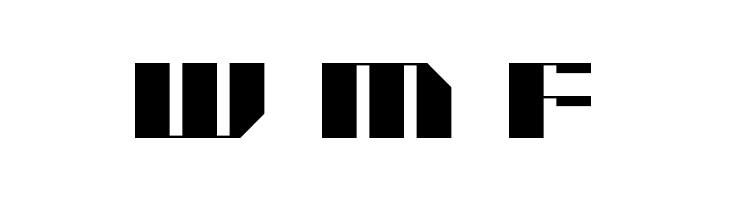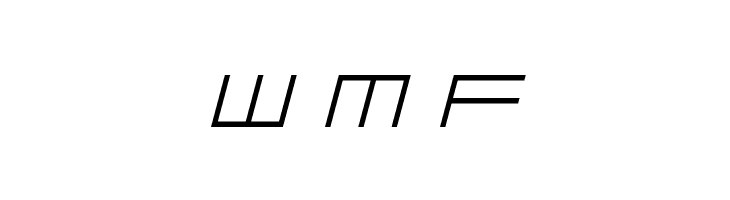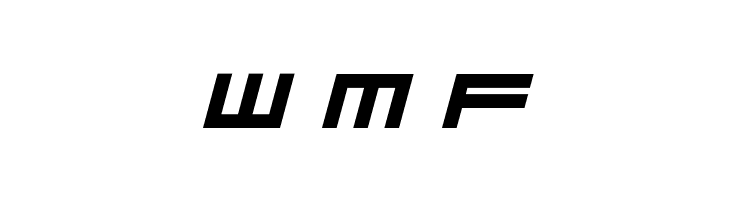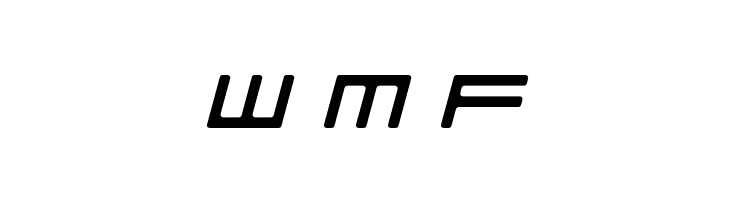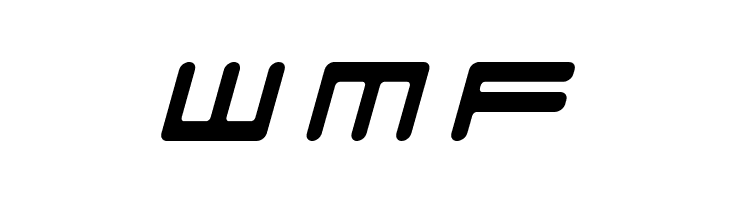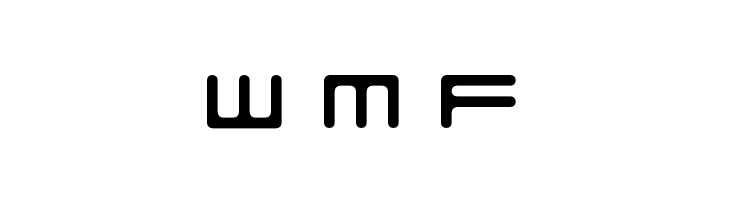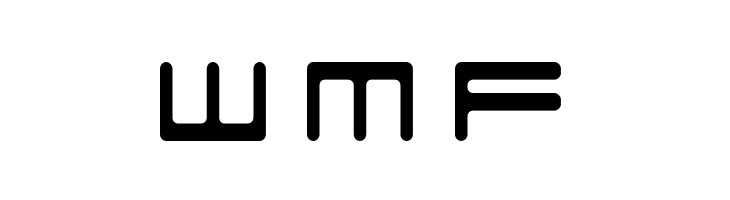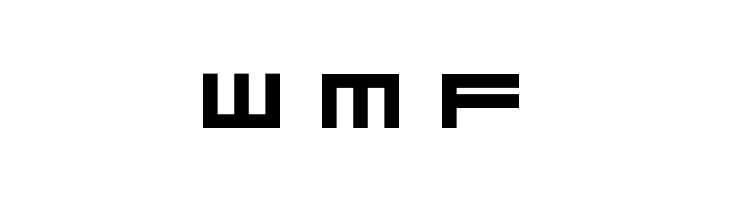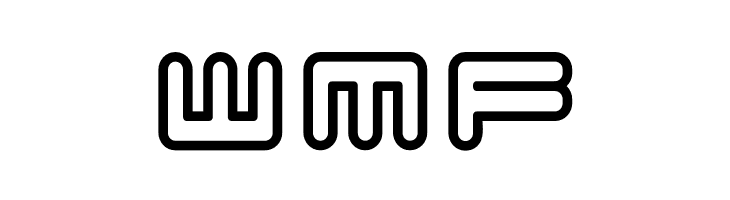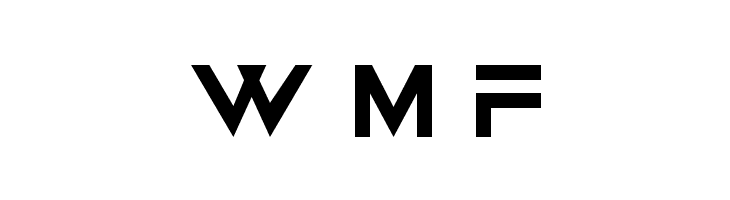
A bold, futuristic font with geometric, angular shapes and a technological feel.
A bold, geometric font with angular, futuristic characters.
A bold, geometric font with a modern, blocky aesthetic.
A bold, oblique font with a futuristic and dynamic style.
A futuristic, oblique font with rounded edges and a sleek, modern design.
A futuristic, angular, and oblique font with a sleek, modern design.
A sleek, futuristic font with geometric and dynamic design.
A futuristic, geometric font with angular shapes and clean lines.
A futuristic, rounded font with geometric shapes and smooth curves.
A futuristic, geometric font with thin, angular strokes and consistent height.
A sleek, futuristic oblique font with thin, elongated characters and sharp angles.
A futuristic, oblique font with bold, geometric characters and rounded edges.
A futuristic, geometric font with bold, rounded edges and consistent stroke width.
A futuristic, geometric font with rounded edges and uniform line thickness.
A sleek, futuristic oblique font with a modern, high-tech aesthetic.
A futuristic, outlined font with a bold, geometric style.
A futuristic, outlined font with bold, geometric shapes and smooth, rounded edges.
A bold, geometric font with sharp angles and a modern, industrial aesthetic.
A bold, geometric font with a futuristic and industrial design.
A bold, geometric font with a futuristic, industrial style.
A geometric, maze-like font with intricate line patterns and a bold, modern style.
A bold, geometric font with angular shapes and a modern, digital feel.
A bold, angular font with a modern, dynamic style and high contrast.
A bold, geometric font with strong, angular shapes and a modern look.
A bold, italic font with angular, geometric characters and a modern, dynamic style.
A bold, geometric font with angular lines and a modern look.
A bold, italicized font with geometric shapes and angular edges.
A bold, geometric font with sharp angles and a modern aesthetic.
A bold, italicized font with a modern, geometric style.
( Fonts by TypeType Foundry )
A bold, geometric font with sharp edges and a strong presence.